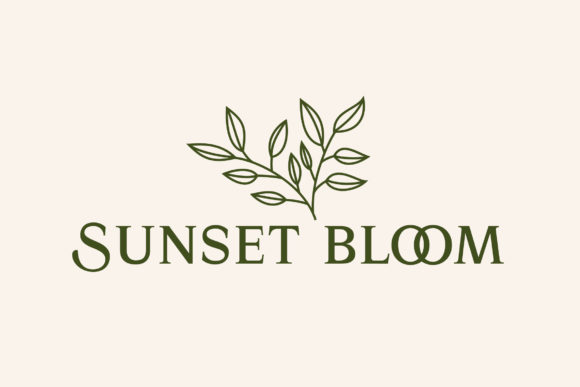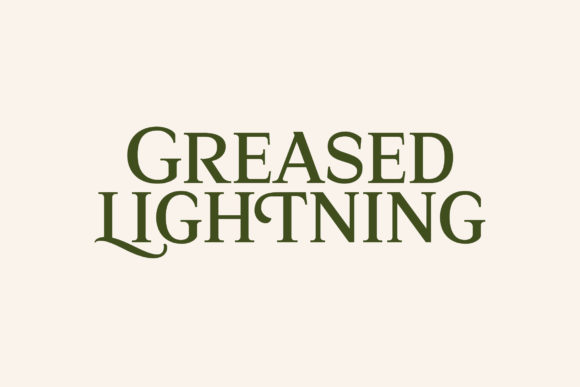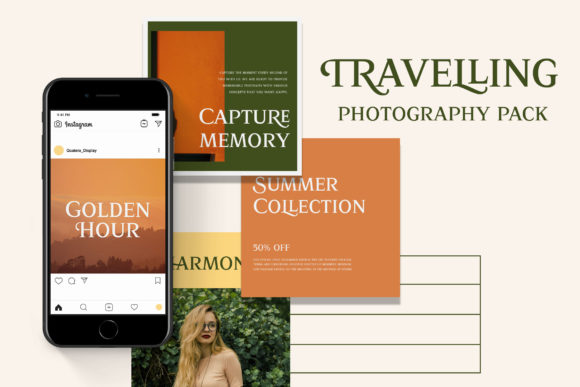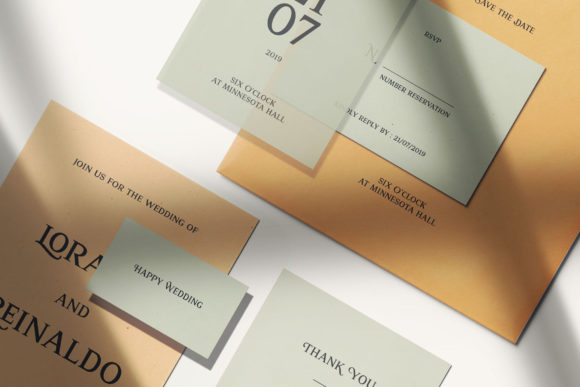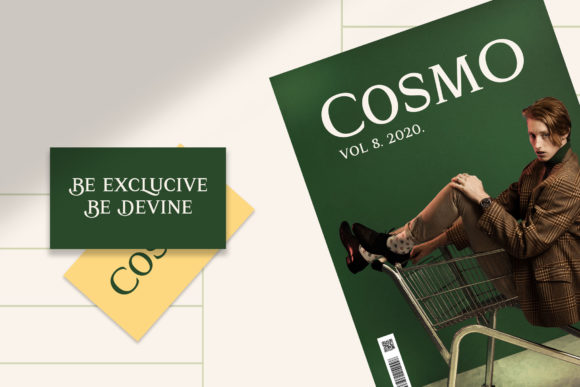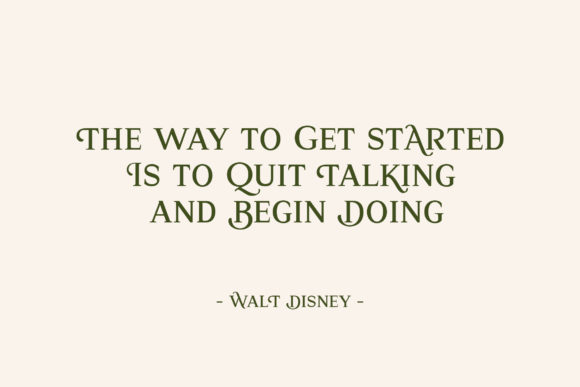
Introduction to Quatera Font
Quatera is an elegant serif font.
It is perfect for your up coming projects, such as luxury logo and branding, classy editorial design, magazine, fashion promotional, boutique branding, stationery design, blog design, modern advertising design, card invitation, art quote, home decor, book/cover title, special events and any other project you can think of .